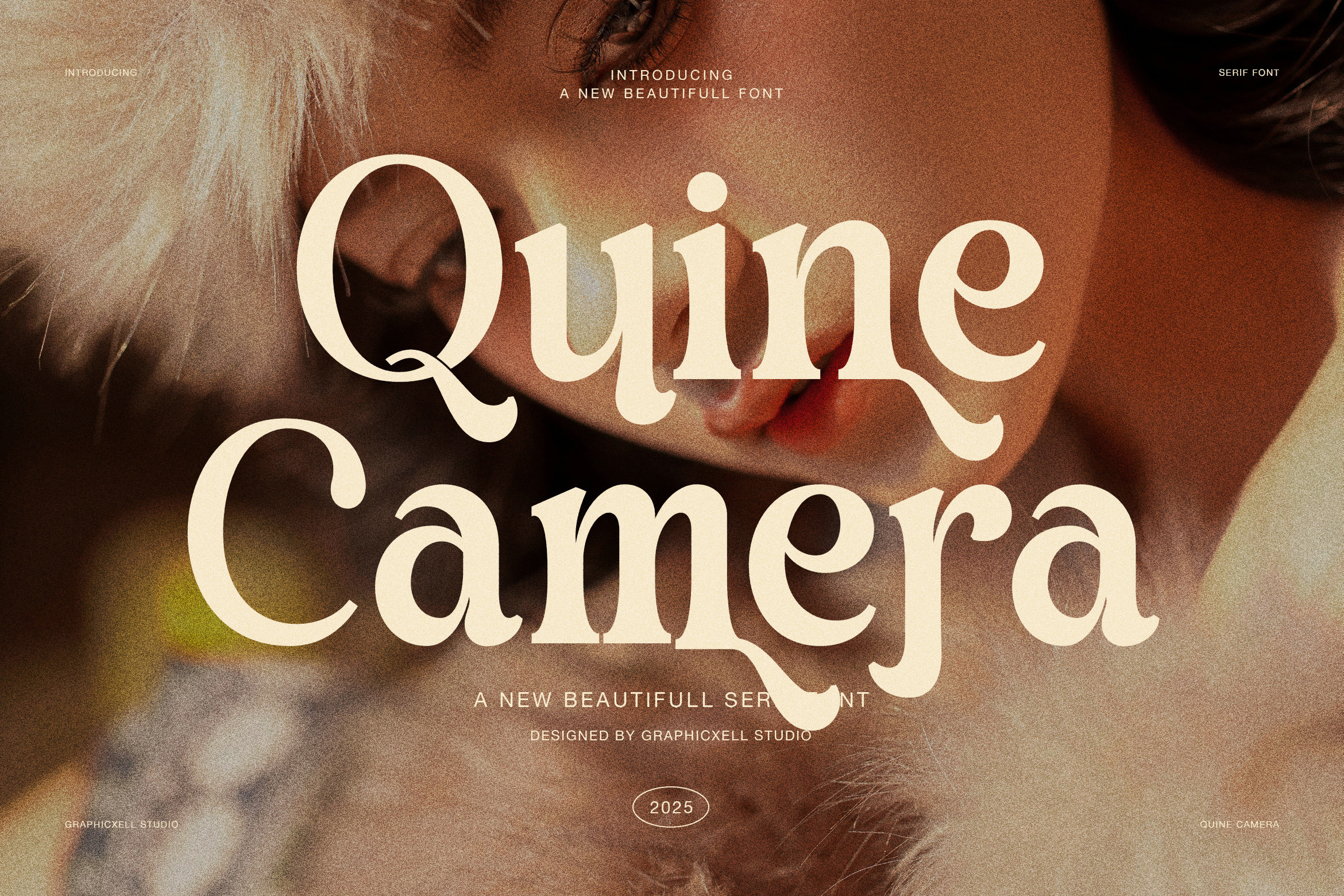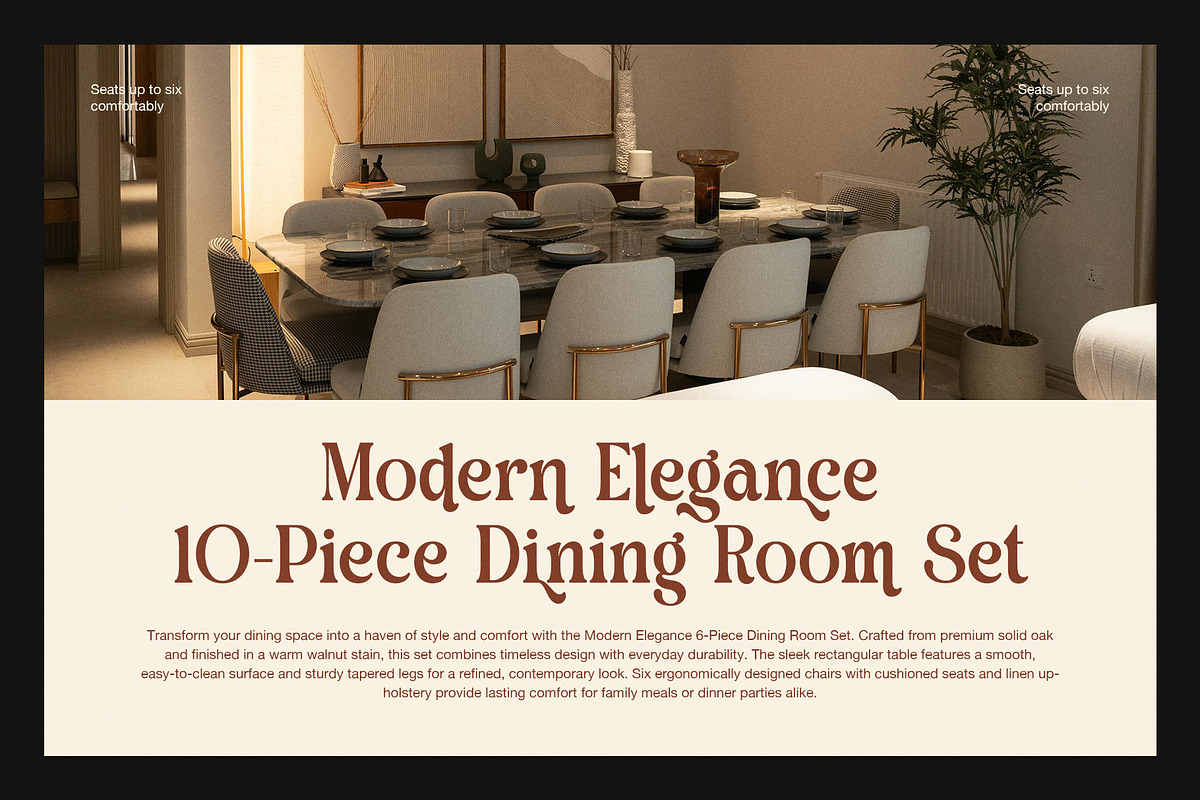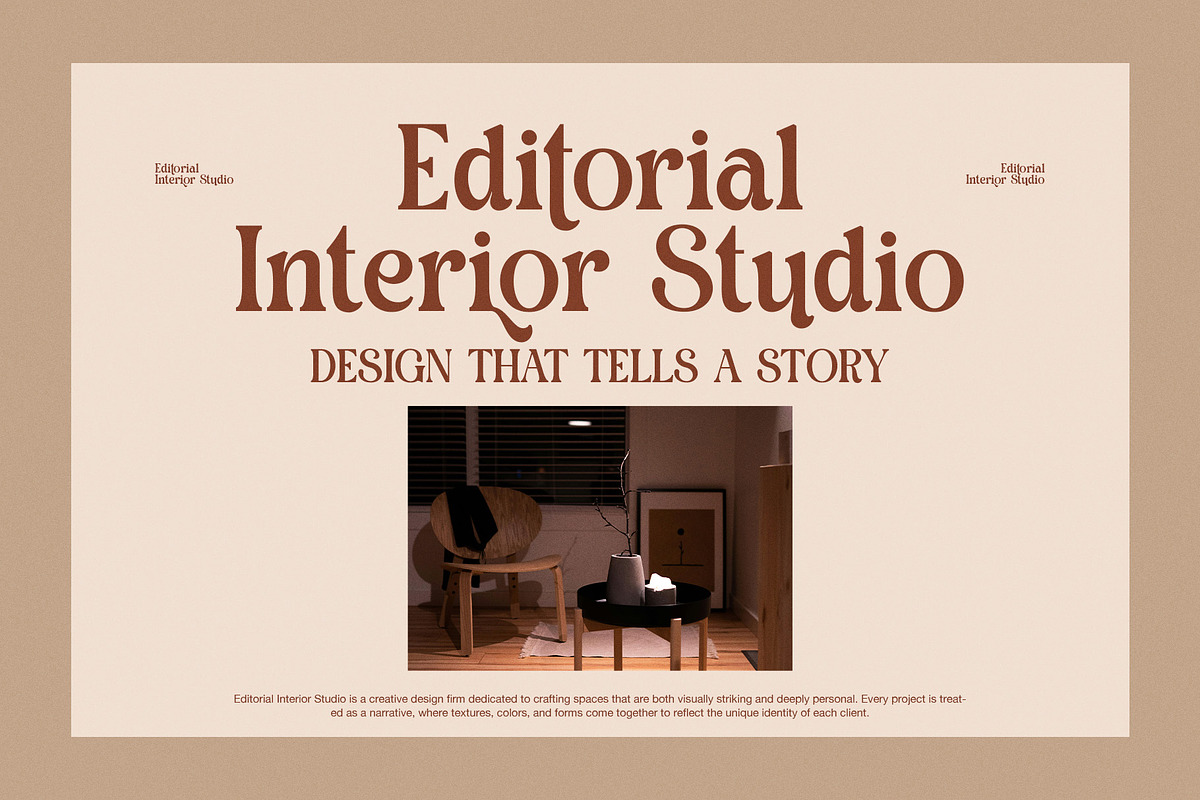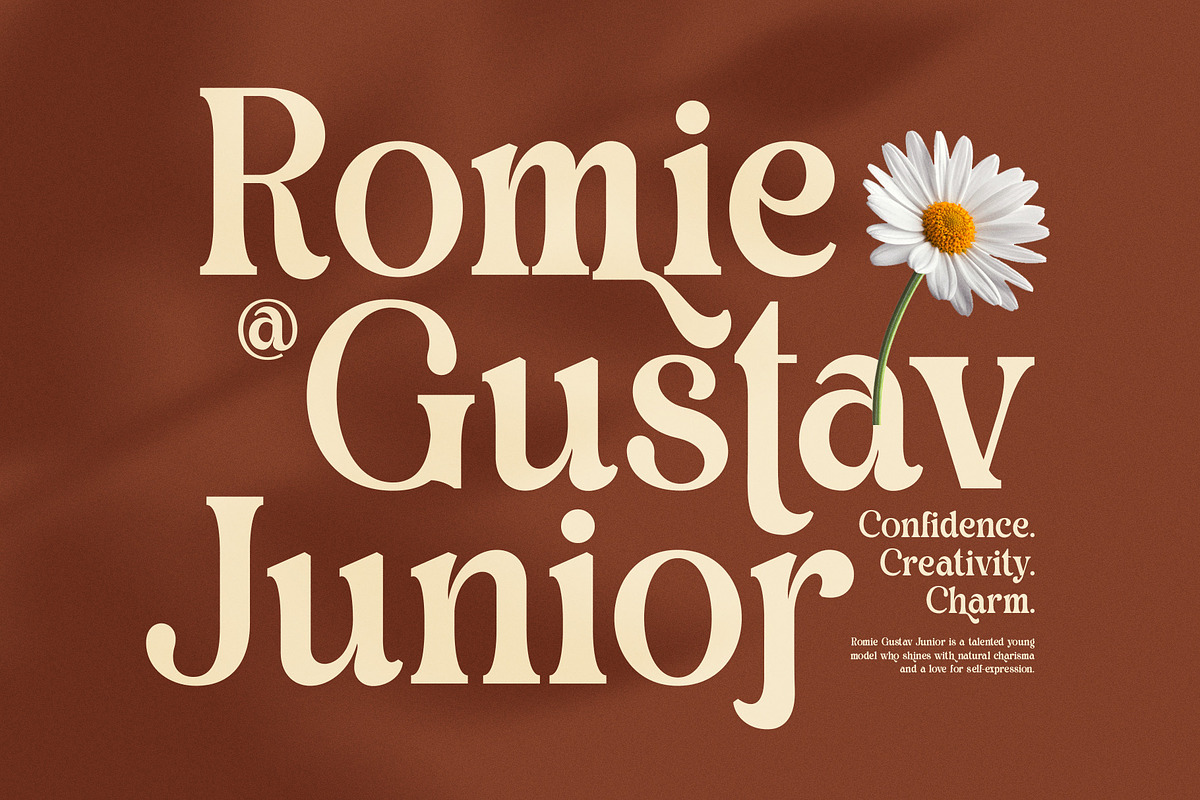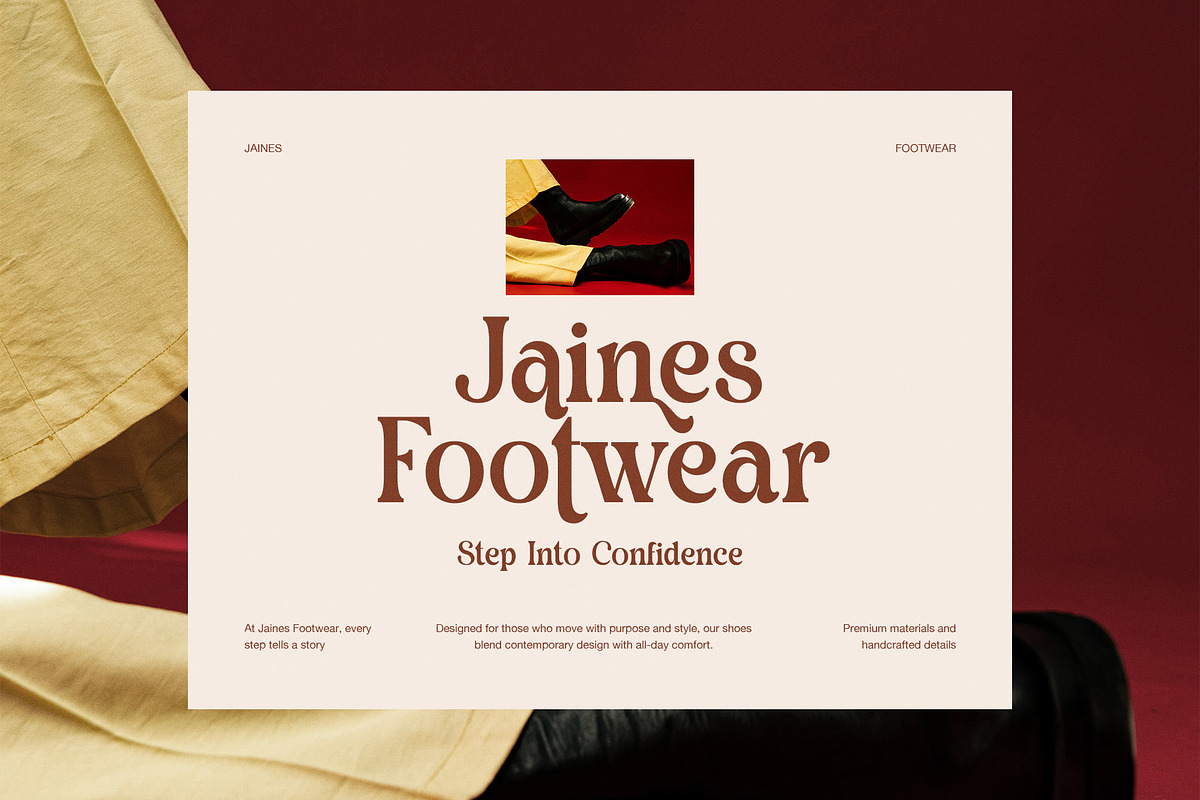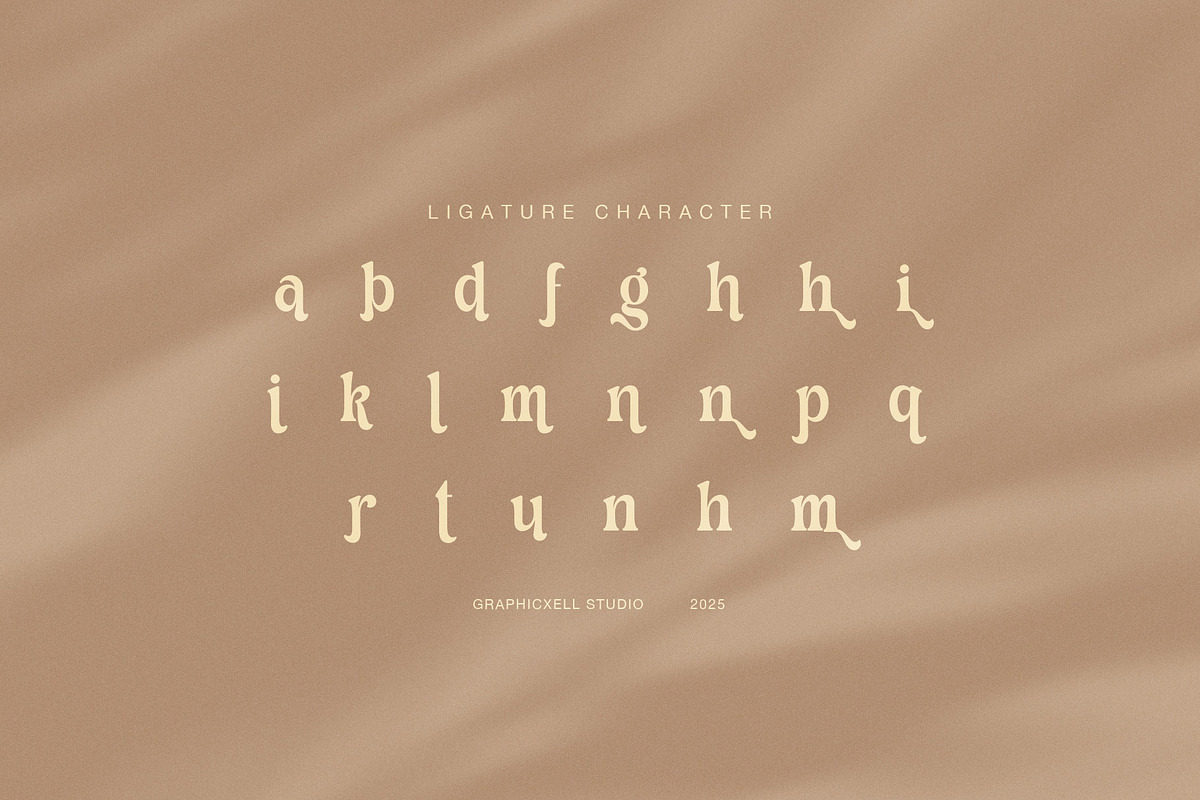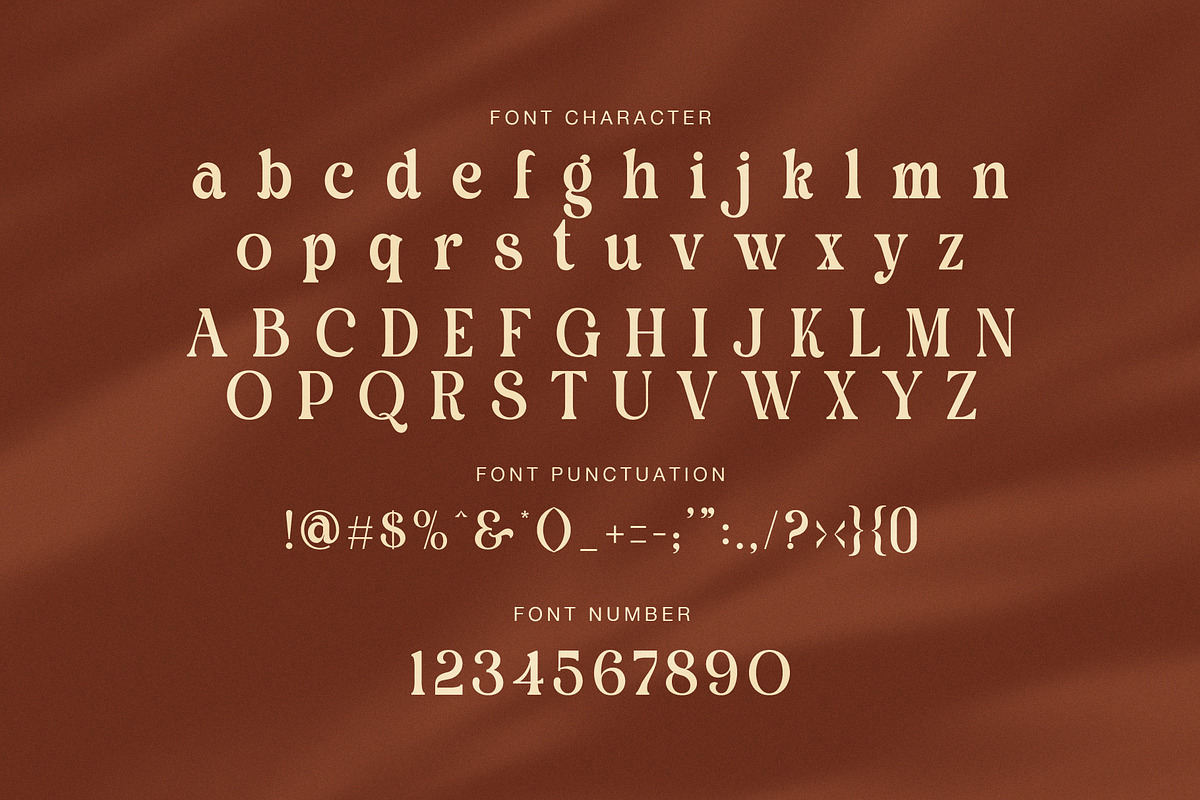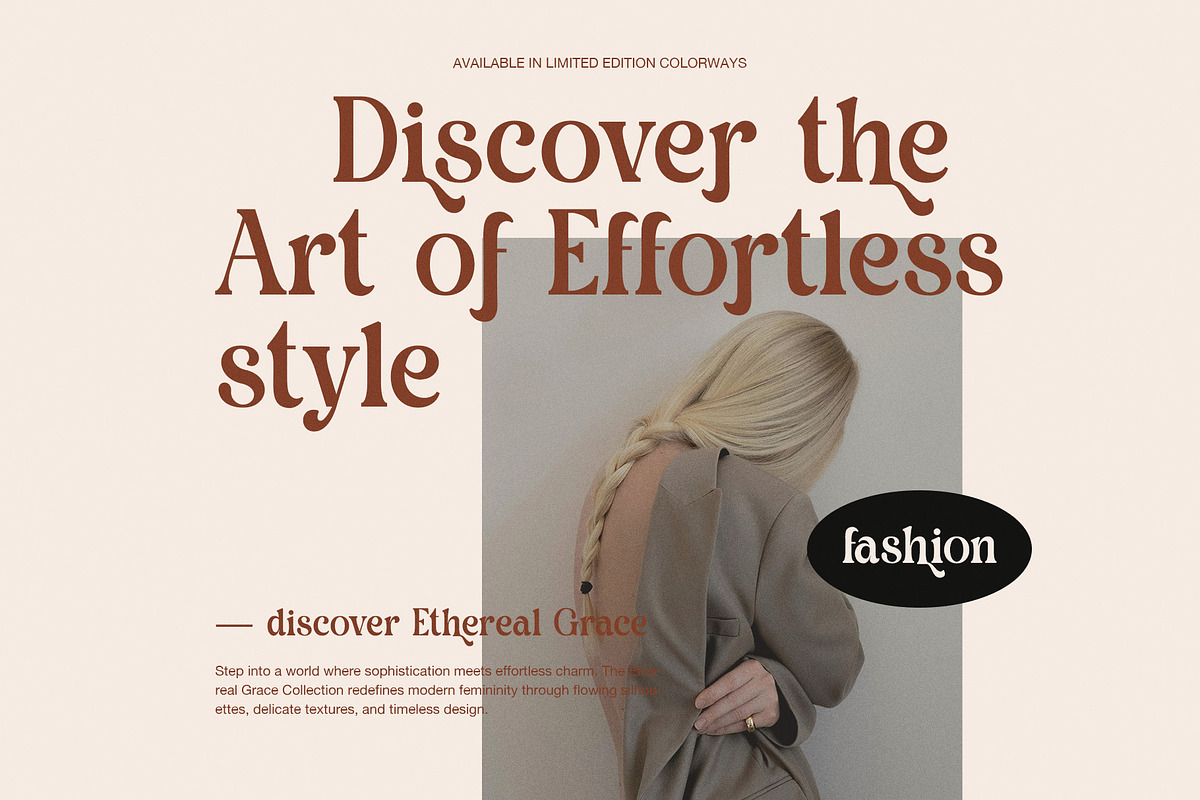
Quine Camera Elegant Serif Font
A Soft Editorial Serif with Timeless Personality
Quine Camera is an elegant serif font crafted for designers who value warmth, character, and subtle sophistication. From fashion headlines to interior branding, this typeface creates an atmosphere that feels calm, expressive, and beautifully composed. Because of its gentle curves and organic proportions, Quine Camera delivers elegance without stiffness.
At first glance, the font feels classic. However, its soft terminals and flowing details give it a modern soul. As a result, Quine Camera works perfectly in both contemporary and timeless designs. Moreover, the balanced stroke contrast keeps every letter readable while still feeling refined.
Designed for Fashion, Lifestyle, and Editorial Use
This elegant serif font shines in large headlines and display text. At the same time, it remains harmonious in supporting typography. Therefore, designers can use it across entire layouts without visual conflict. Whether you create fashion campaigns, lifestyle magazines, or interior presentations, Quine Camera adapts effortlessly.
In addition, the font includes clean punctuation, expressive numerals, and unique ligatures. Because of these details, text feels fluid and visually connected. Furthermore, these features help elevate branding projects that rely on emotion and storytelling.
Ideal Use Cases
Quine Camera performs beautifully in:
Fashion editorials and lookbooks
Interior design studios and presentations
Lifestyle and boutique branding
Restaurant and café identities
Product packaging and labels
Social media headlines and banners
Wedding invitations and stationery
Why Designers Choose Quine Camera
Quine Camera was designed to feel human, not mechanical. Therefore, it creates trust and emotional connection. Instead of following short trends, this font focuses on long-lasting beauty. Additionally, its editorial style helps brands appear confident, thoughtful, and premium.
Ultimately, Quine Camera is more than an elegant serif font. It is a storytelling typeface that turns words into visual mood and meaning.